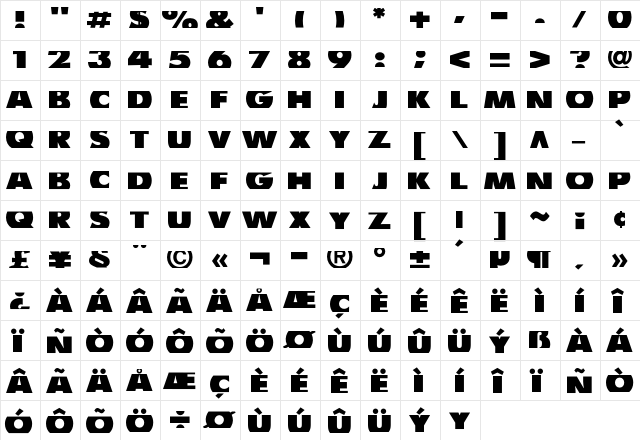
Edge Horizontal Regular
| Designer | Guillaume-ulrich Chifflot |
Design Context for Edge Horizontal Typeface
Edge Horizontal offers clean, dependable letterforms without strong stylistic allegiance, making it a practical choice for designers who need flexibility.